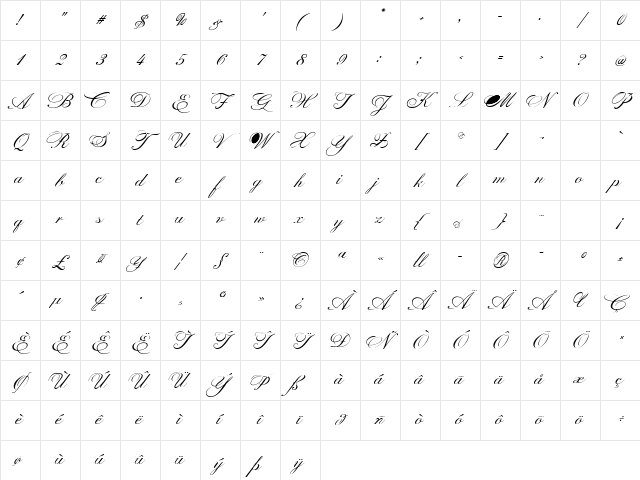
PrintsCharming Regular
Foundry: - Digiteyes Multimedia
Design Context for PrintsCharming
PrintsCharming is a composed and adaptable typeface that performs quietly and consistently across a wide range of design contexts.